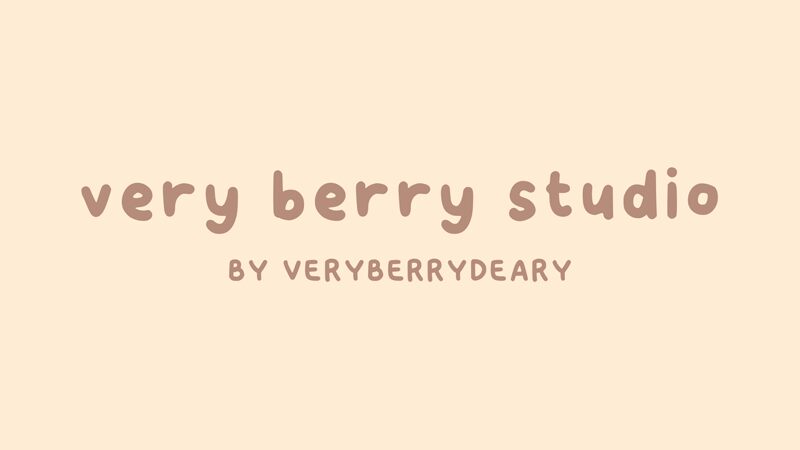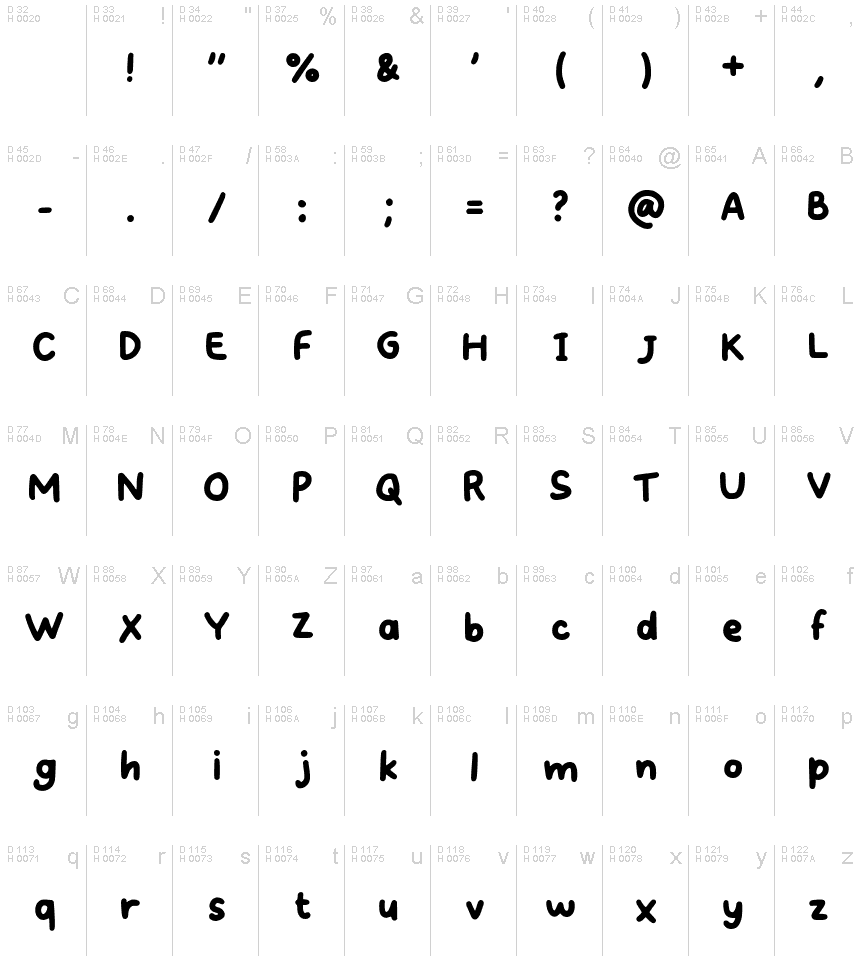
Very Berry Studio Regular
Very Berry Studio is a bold, handwritten font created by veryberrydeary. Its unique style makes it perfect for a range of projects from logos to scrapbooks to posters. Add a personal touch to your designs with Very Berry Studio!